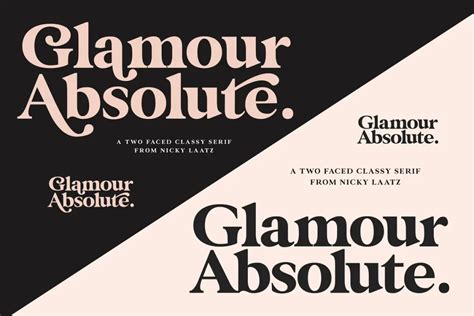
Glamour Absolute Font. Modern or vintage if you are going vintage retro :. Glamour absolute contains 3 styles and family package options.
Glamour absolute regular is a regular opentype font. Glamour absolute contains 3 styles and family package options. Web glamour absolute font family was designed by nicky laatz and published by nicky laatz. Modern or vintage if you are going vintage retro :. 4 users have given the font a rating of 5.0 out of 5. It has been downloaded 2451 times.